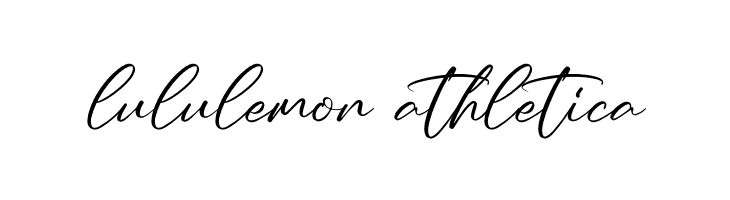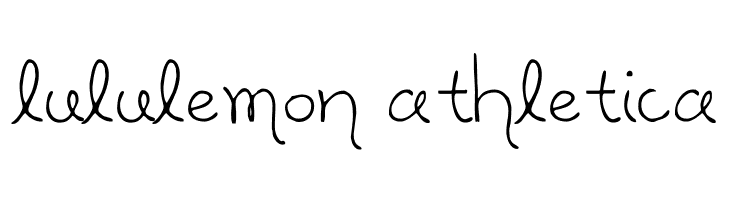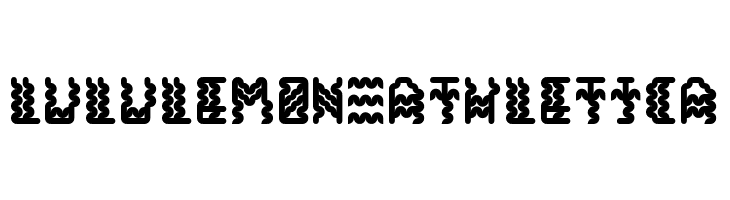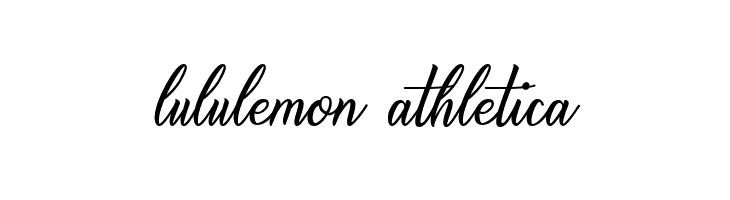
• Behemuth Warped Rotalic
A bold, warped, and dynamic font with a playful, chaotic aesthetic.
• Behina
( Fonts by Nirmala Creative )
• Behind
( Fonts by Inermedia Studio )
A playful and whimsical handwritten font with fluid strokes and expressive characters.
• Behind Blue Eyes
• Behind Brown Eyes
( Misti's Fonts - mistifonts.com/ )
A playful, handwritten font with smooth, rounded edges and a casual style.
• Behind Dirty Blinds
( Fonts by David Kerkhoff - www.hanodedphotography.com )
A bold, striped font with a modern, industrial look.
• Behind Green Eyes
• Behind Lines
• Behind Scene
( Fonts by Eddy Goodboy )
Playful, bold handwritten font.
• Behind Scenes
A whimsical script font with elegant, flowing letterforms and playful flourishes.
• Behind the Painter
A bold, expressive handwritten script font with smooth curves and a dynamic style.
• Behind The Scenery
A playful, bold script font with a handwritten, whimsical style.
• Behind the surprise
A bold, playful font with rounded edges and a modern, casual style.
• Behind Violet Eyes
( Misti's Fonts - mistifonts.com/ )
A playful, handwritten font with rounded, bold characters.
• BehindBlueEyes
( Misti's Fonts - mistifonts.com/ )
• BehindBrownEyes
( Misti's Fonts - mistifonts.com/ )
A playful, handwritten font with smooth, rounded edges and a casual style.
• BehindGreenEyes
( Misti's Fonts - mistifonts.com/ )